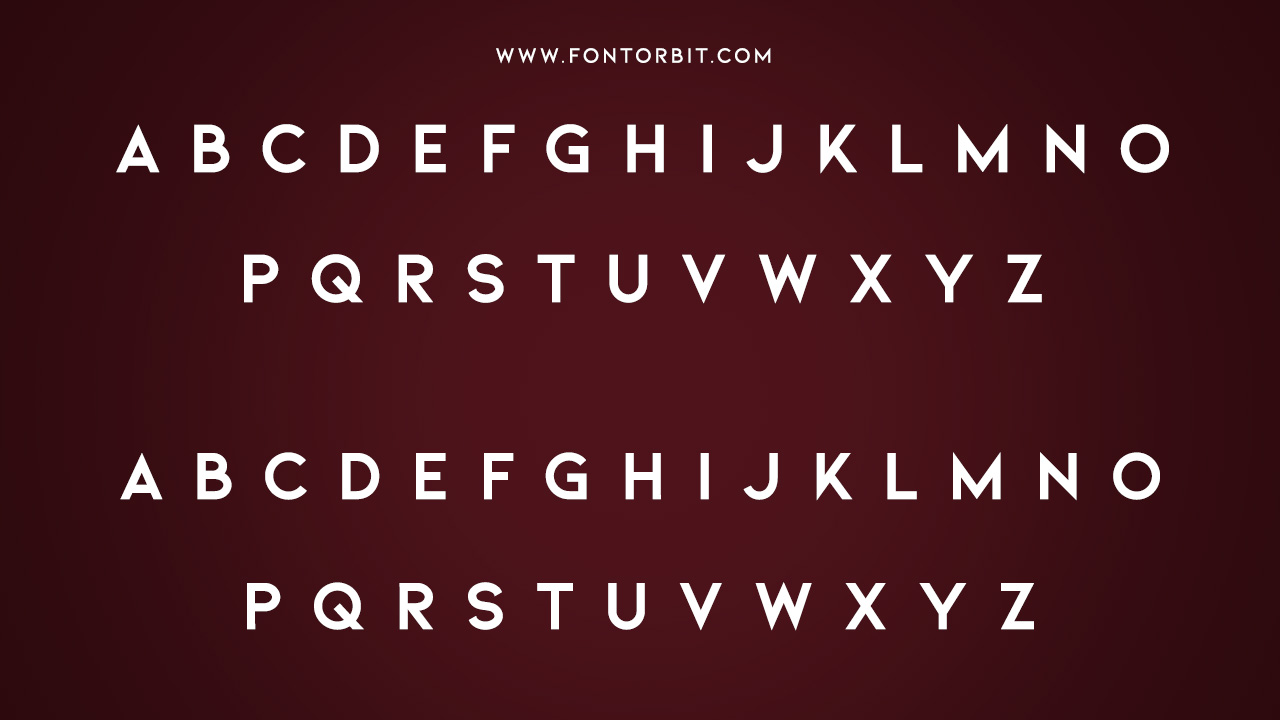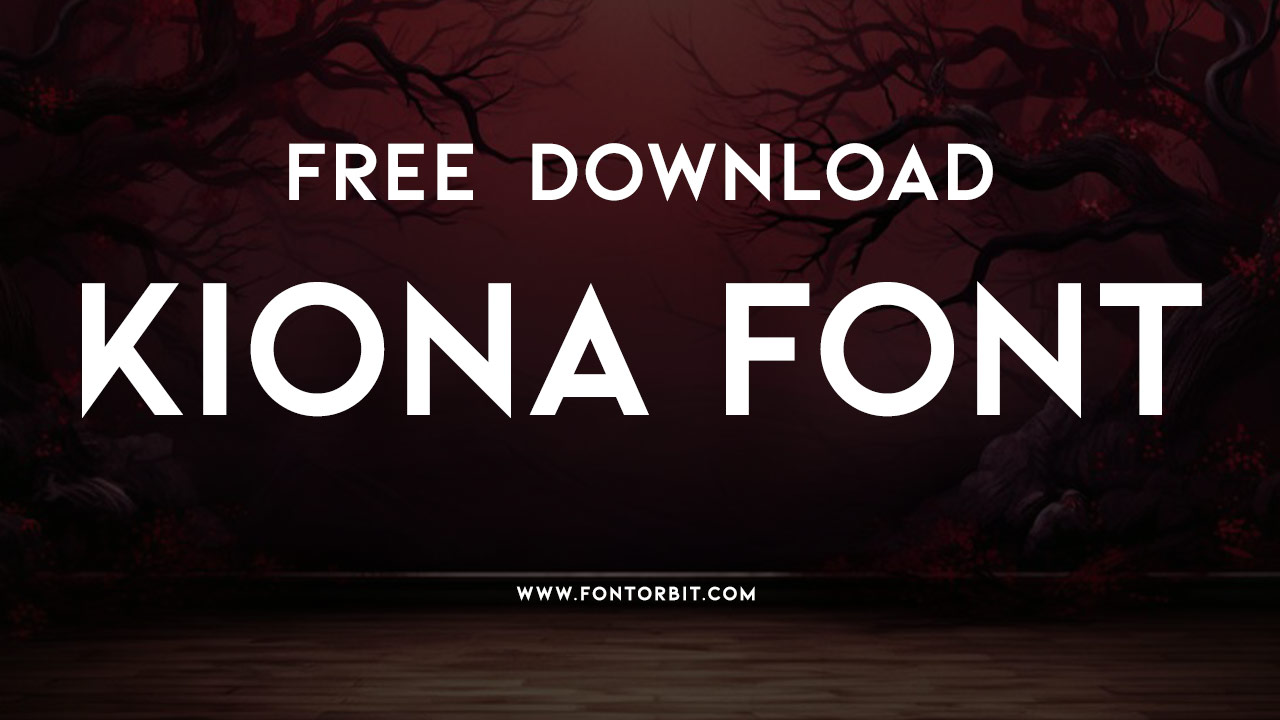
Kiona is a modern sans-serif font designed by Ellen Luff and first published in 2019. It features a clean, geometric style that balances simplicity with elegance.
Known for its sharp edges and contemporary feel, Kiona is perfect for professional and creative design projects. The font family is versatile, offering multiple weights to suit various design needs, from sleek logos to modern branding materials.
Kiona Font Family Includes
Kiona is available in four weights, making it adaptable to different design purposes. Its minimalistic, sharp look makes it a great option for clean, impactful designs.
- Kiona Regular
- Kiona Light
Notable Uses Of Kiona Font
Kiona is a versatile font that fits well in various contexts where a modern and clean look is needed. It is ideal for:
- Branding and logos
- Website headers and body text
- Advertising and marketing materials
- App interfaces and user experience designs
Kiona is a sharp, minimalistic font that works well for modern branding and design projects. Its geometric structure makes it stand out while remaining clean and versatile. Whether you’re designing for a tech company or a fashion brand, Kiona will bring a modern edge to your work.
2.What Font Family Does Kiona Belong To?
Kiona is a part of the sans-serif font family.
4.What Styles Are Available In The Kiona Font Family?
The styles include Regular, Bold, Light, and SemiBold.
5.Can Kiona Be Used For Web Design?
Yes, Kiona is ideal for web design, especially for clean, modern layouts.
6.What Notable Uses Does Kiona Have?
Kiona is popular in branding, logo design, and advertising.
7.Is Kiona A Good Font For Print Design?
Yes, Kiona’s clean lines and readability make it suitable for print materials as well.